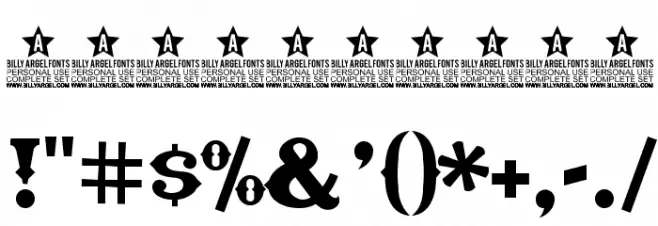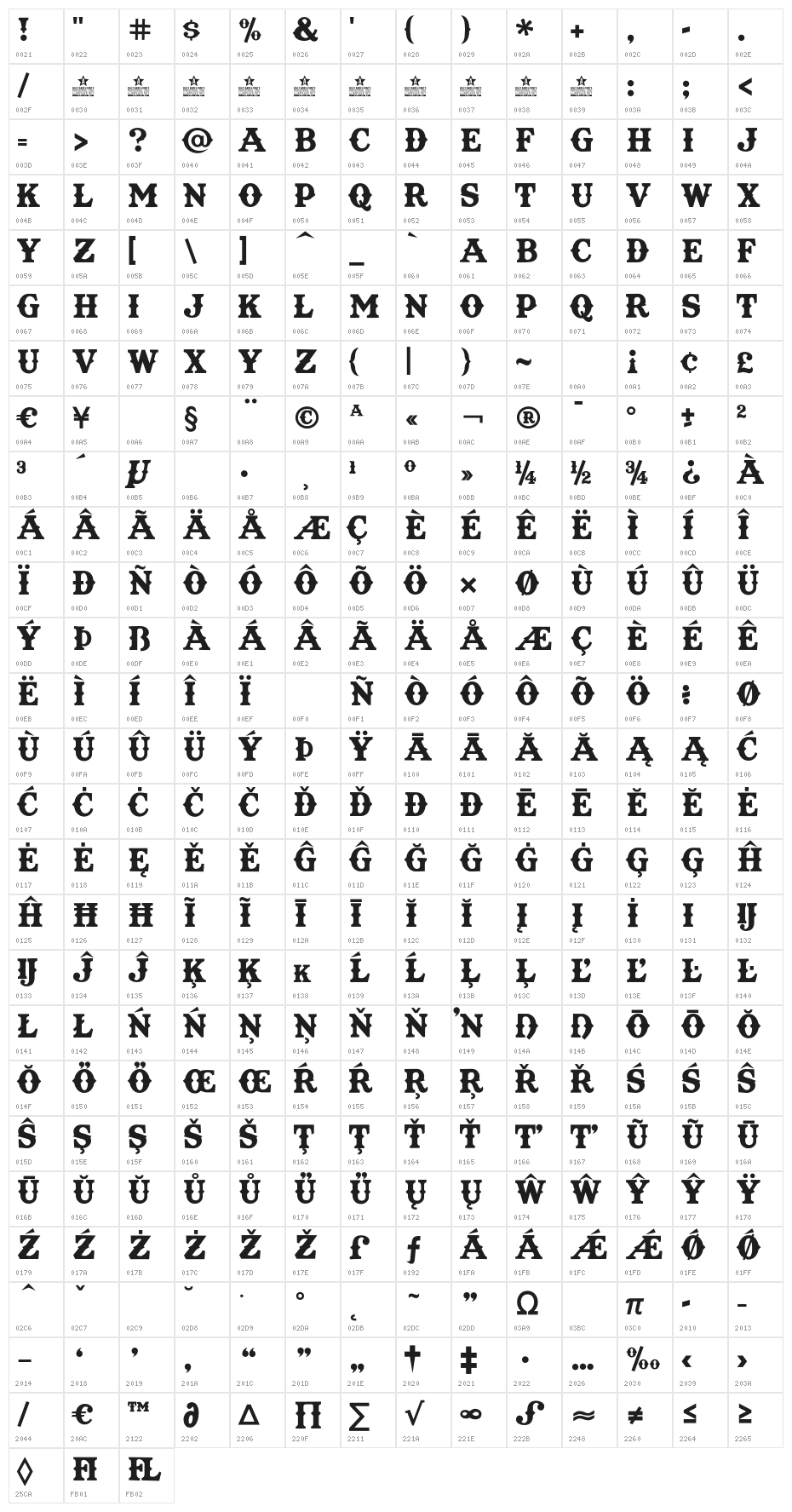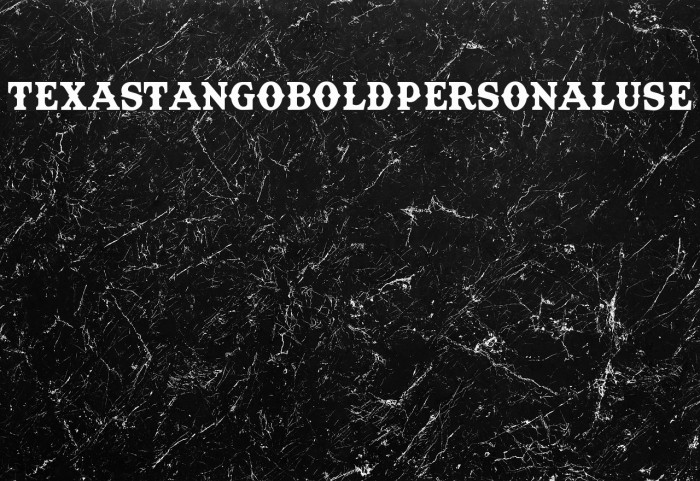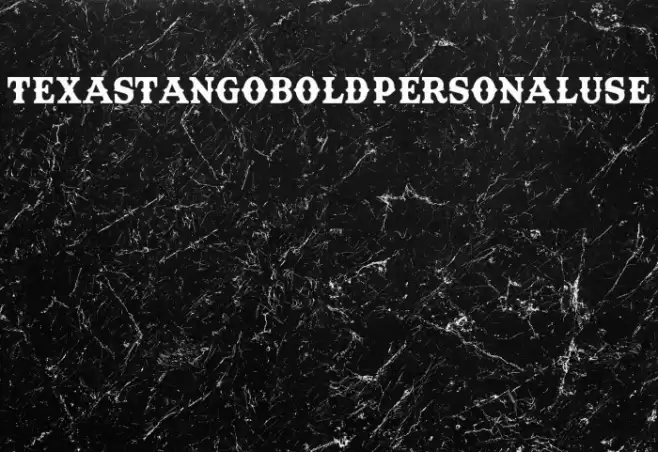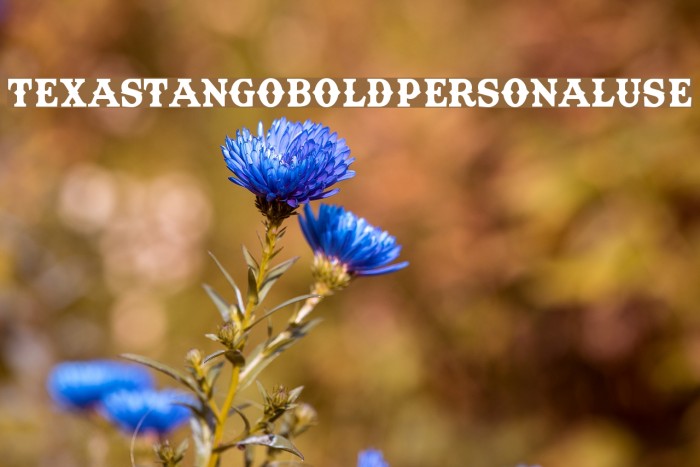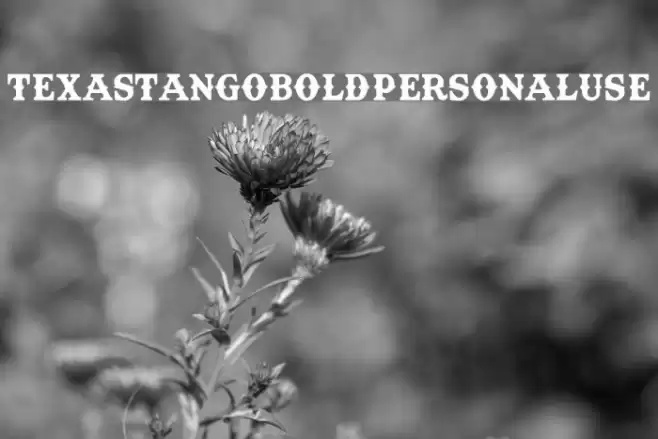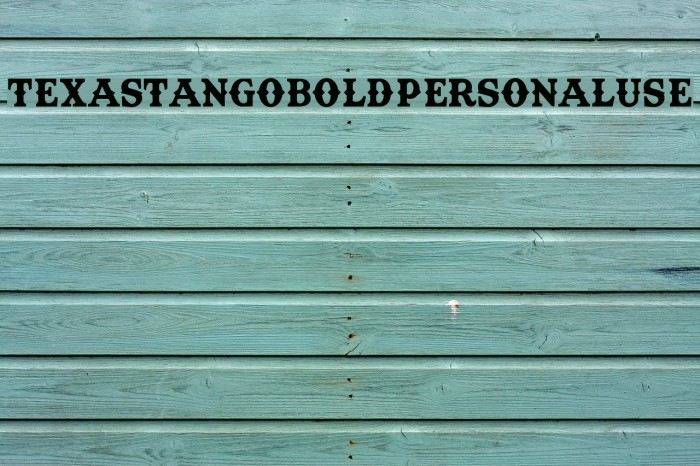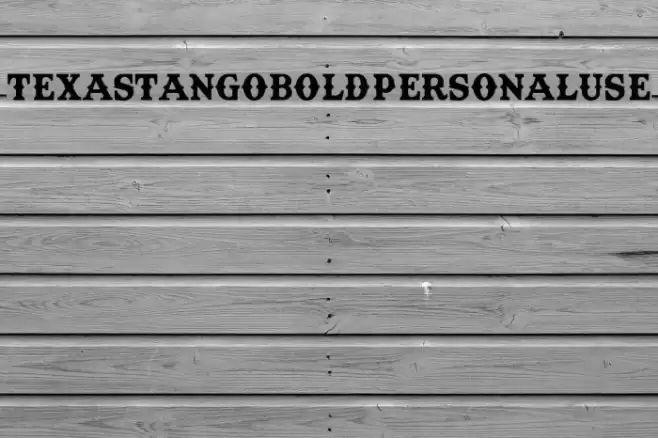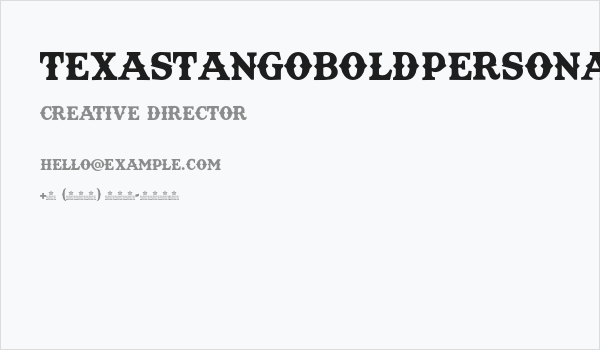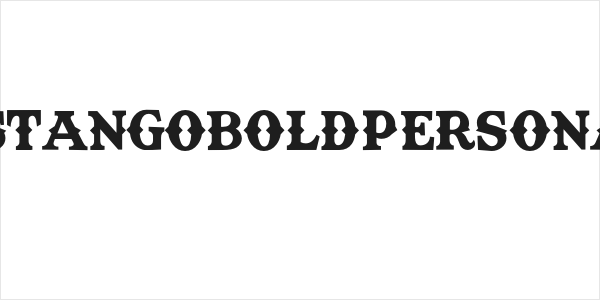
TexasTangoBOLDPERSONALUSE Font
✎ Western
TexasTangoBOLDPERSONALUSE Description
This bold and striking font features a strong, Western-inspired design with thick, slab-like serifs and a robust presence. The uppercase letters are particularly prominent, with a distinctive, almost theatrical flair that commands attention. The lowercase letters maintain the same boldness, ensuring consistency throughout. The numerals and special characters are equally bold, making them stand out in any design. This font's unique style is reminiscent of vintage Western posters, offering a sense of nostalgia and rugged charm.